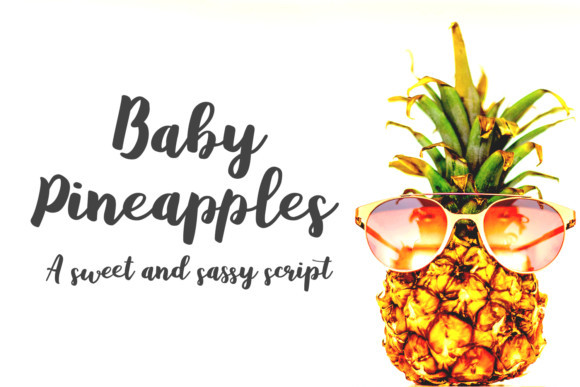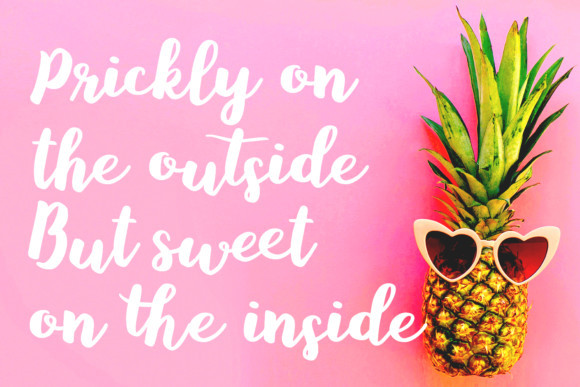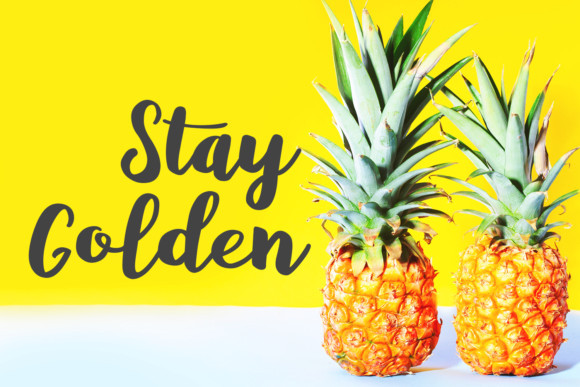
Baby Pineapples Font
Baby Pineapples is a sweet and sassy script font, inspired by sub-tropical Queensland! It is a smooth, It’s a THICC and sweet script with lovely ligatures, sassy stylistic alternates, and a dancing baseline.